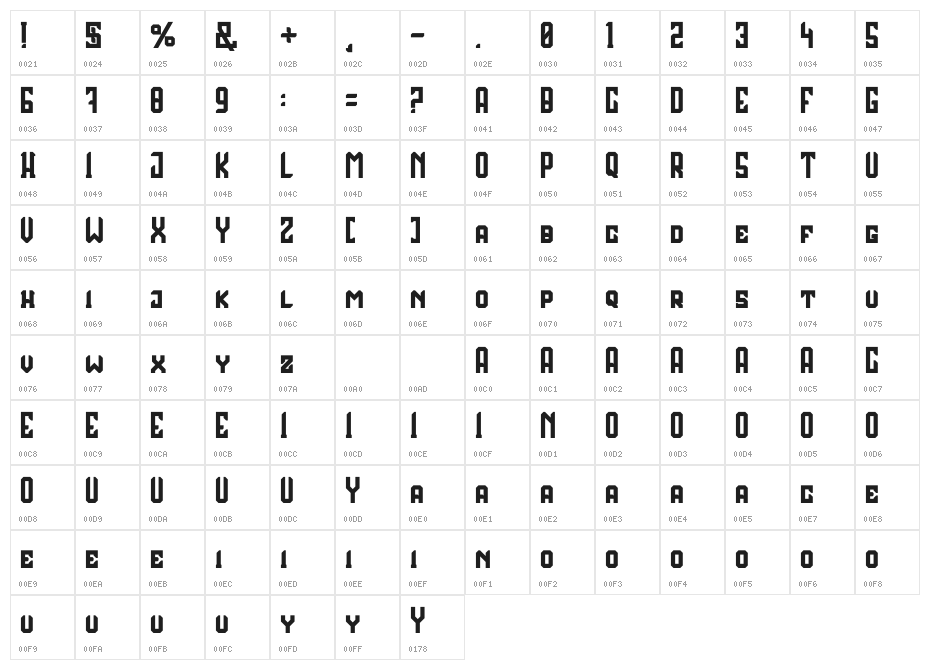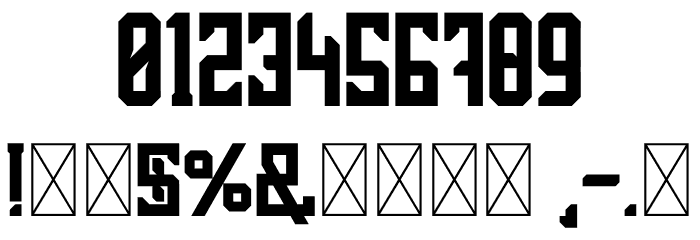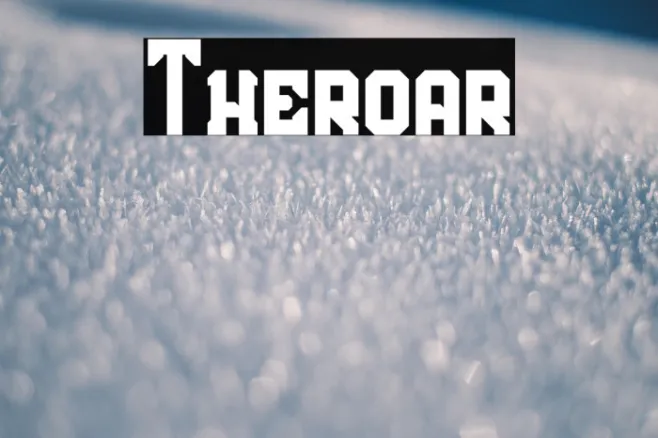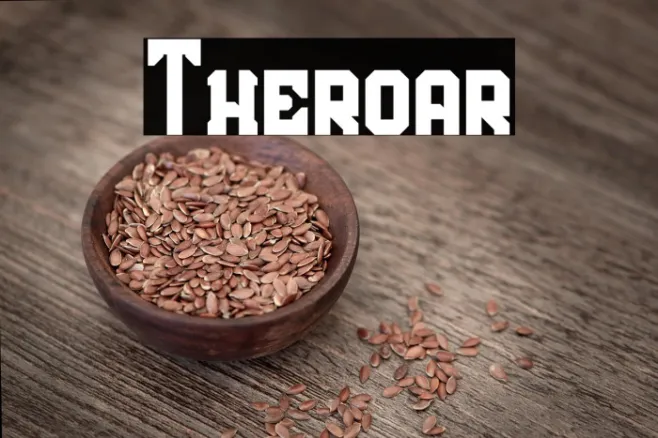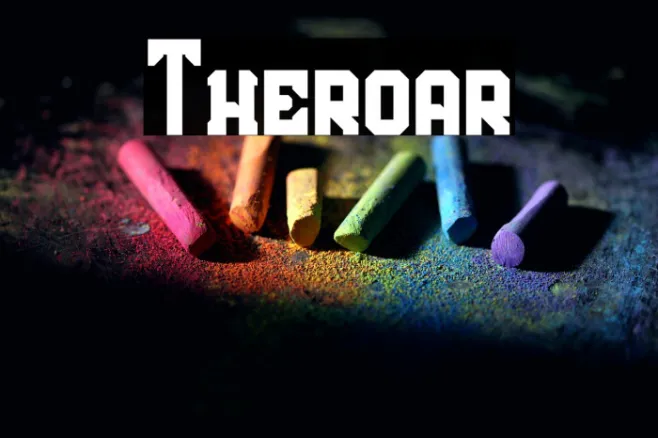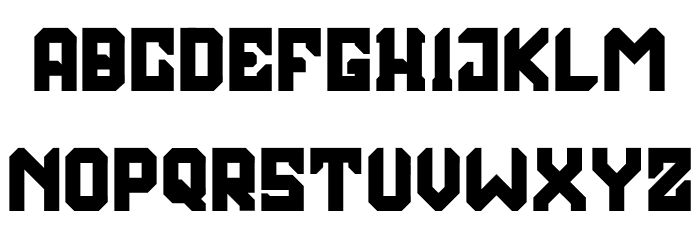
Theroar Font
Theroar Description
This font features a bold, geometric design with sharp angles and a strong presence. The uppercase letters are particularly striking, with a blocky, almost industrial feel. The lowercase letters maintain the same boldness, ensuring consistency throughout. Numbers and special characters are designed to match the robust style, making them stand out. The font's unique structure gives it a modern and edgy appearance, suitable for attention-grabbing designs.